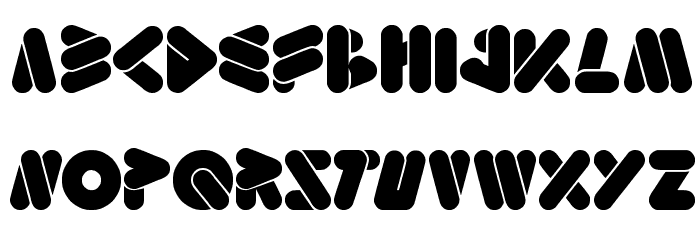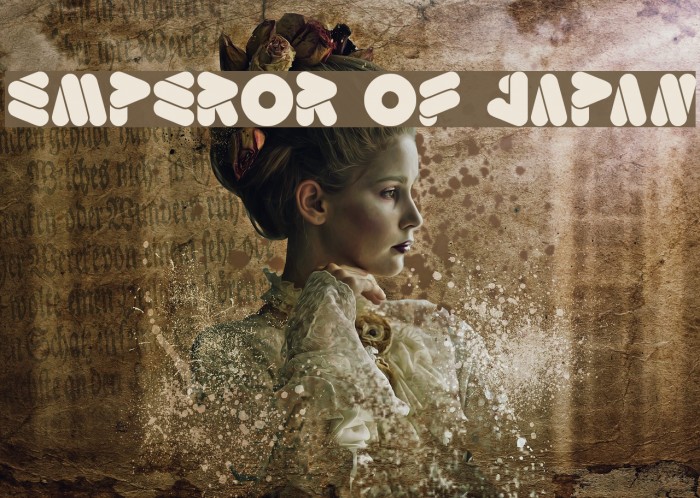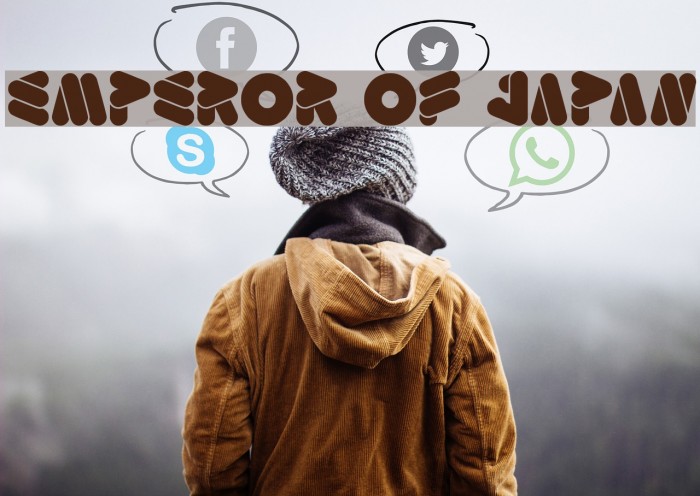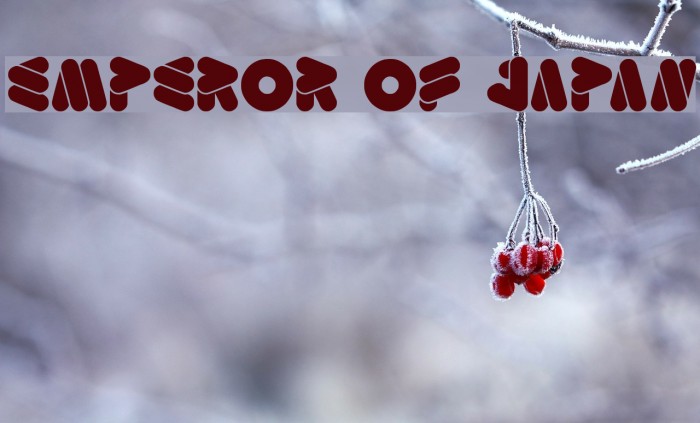
emperor of japan Font
This font features a bold, geometric design with a futuristic flair. Each character is composed of thick, rounded shapes that create a sense of solidity and modernity. The letters are crafted with a unique style, incorporating cut-out sections and angular lines that add an element of intrigue and complexity. The overall appearance is striking and memorable, making it ideal for projects that require a strong visual impact. The font's design is consistent across both uppercase and lowercase letters, maintaining a cohesive look. Its boldness and distinct style make it suitable for creative and innovative uses.
A bold, geometric font with a futuristic and striking design.
- Proposed Projects: Ideal for branding, posters, album covers, and any project needing a modern, impactful look.